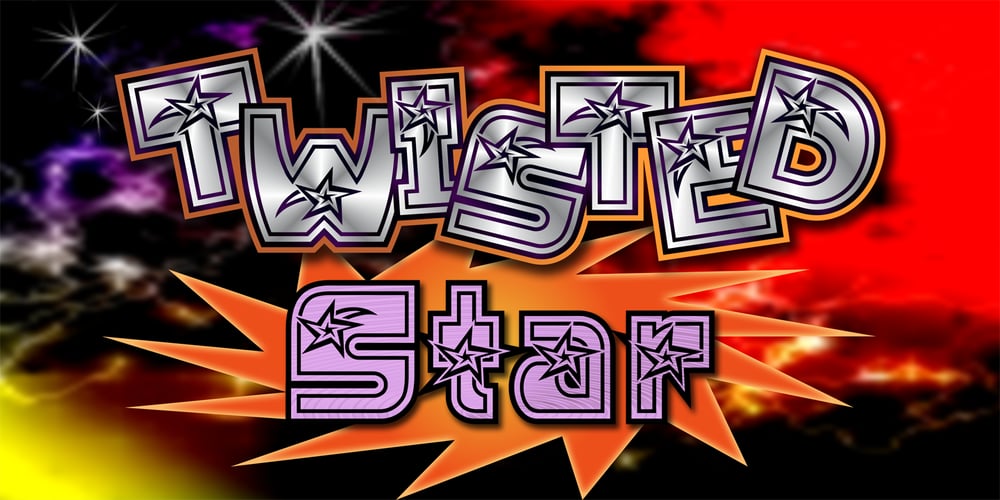
JWX Twisted Star Font Family was designed by Janet Ellis Valdez and published by Janworx. JWX Twisted Star contains 1 styles and family package options. Being a Star is one thing, but being a Twisted one is even better! JWX Twisted Star incorporates your deep desire for stardom into each alpha and numeric glyph, in a bold bordered font. The upper case letters sport a trailing accent, making them shooting twisted stars. This is a single bold typeface, and is intended to be used at a large size in graphics work, adding a not-so-subtle statement to everything from screen printed t-shirts to posters or even embroidery (available at www.janworx.com).